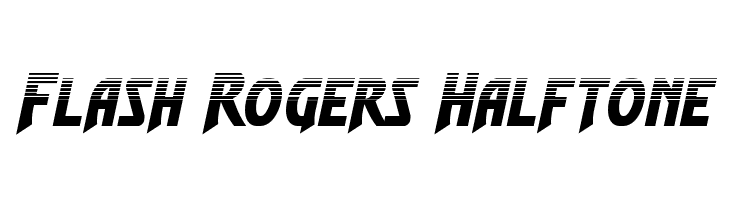
A dynamic, sketchy font with a hand-drawn, energetic style.
A bold, geometric font with a dynamic shadow effect for a modern look.
A bold, italic, and geometric font with a modern, dynamic style.
Elegant, casual handwritten script with connected, flowing strokes.
A bold, dynamic font with a halftone pattern and angular, slanted characters.
A bold, geometric font with rounded edges and a modern, robust appearance.
Modern, geometric sans-serif with clear, uniform strokes.
A bold, modern font with vintage flair and high contrast, ideal for headlines.
A playful, decorative font with unique patterns and textures in each letter.
设计师偏爱 SketchyBuilder, ACCELERARE Shadow, Herum Albern Italic, Blywoofs Free Regular and Flash Rogers Halftone,因为其造型干净、适用范围广—— 从品牌识别到落地页、海报都能胜任。